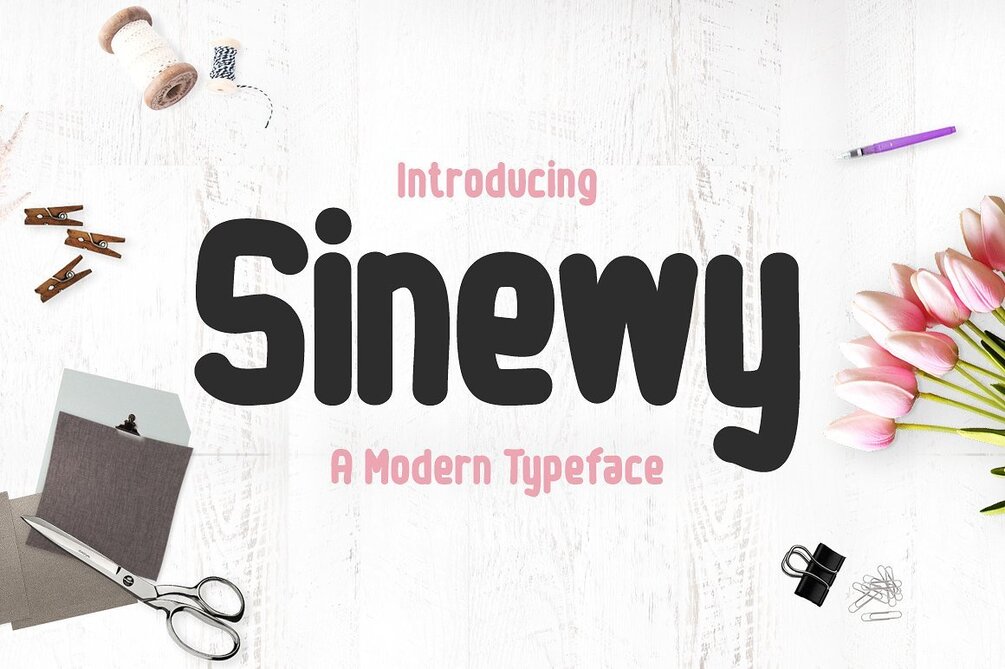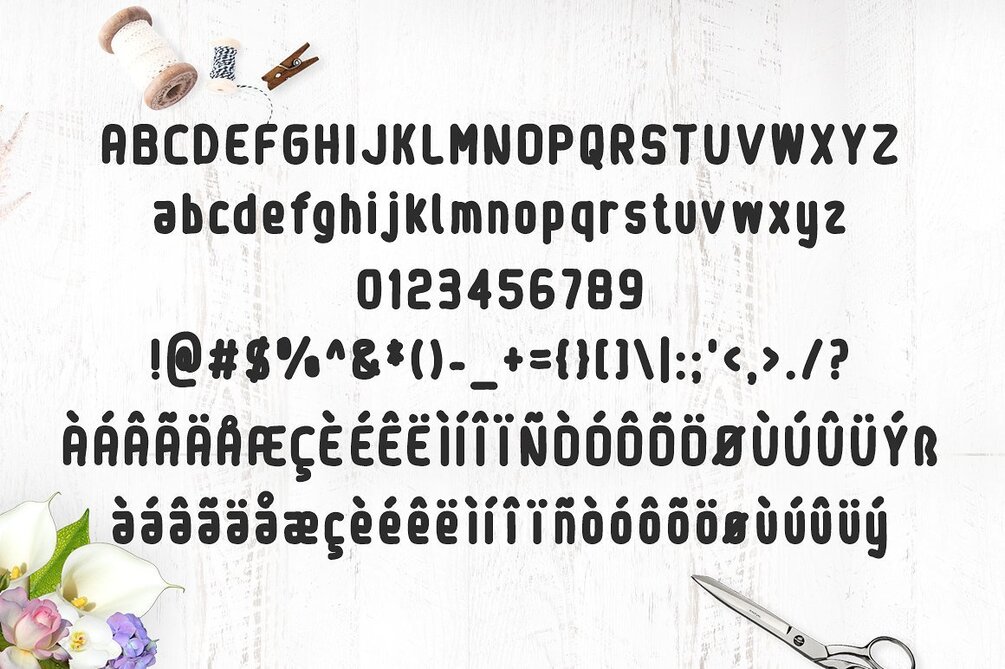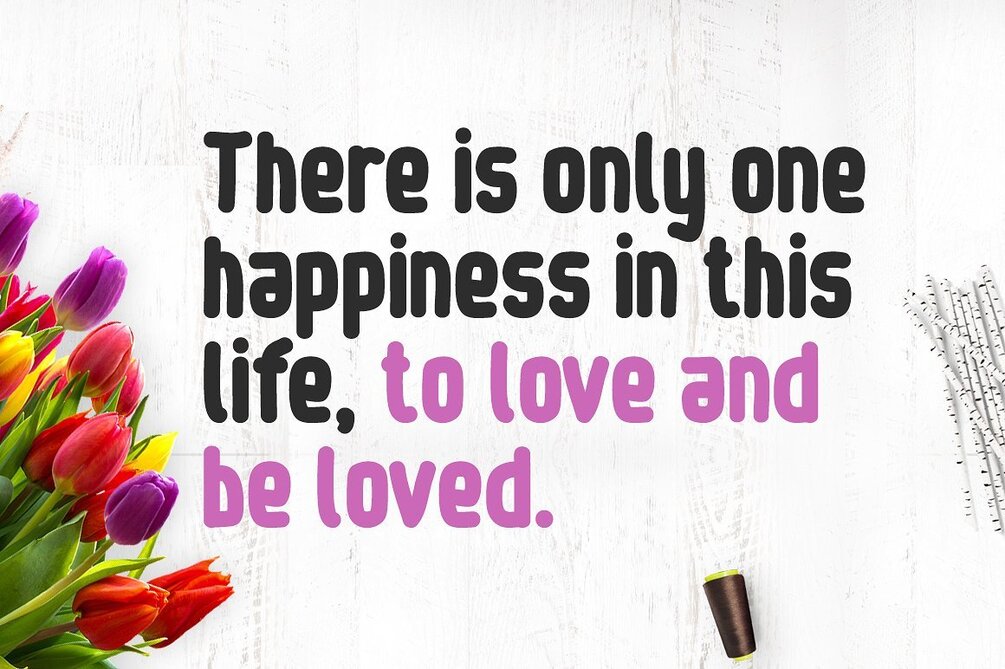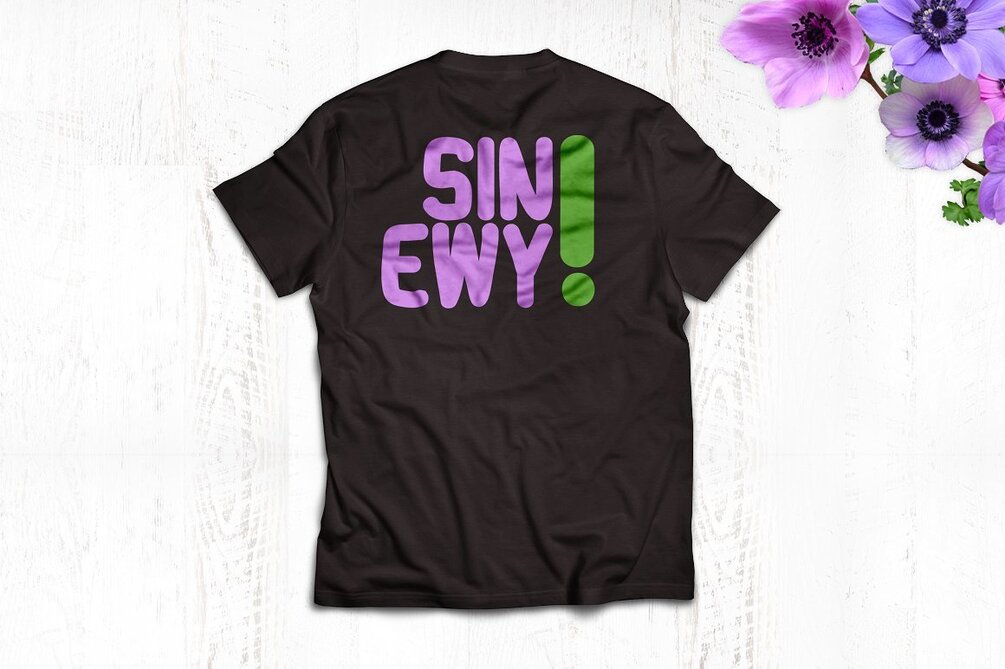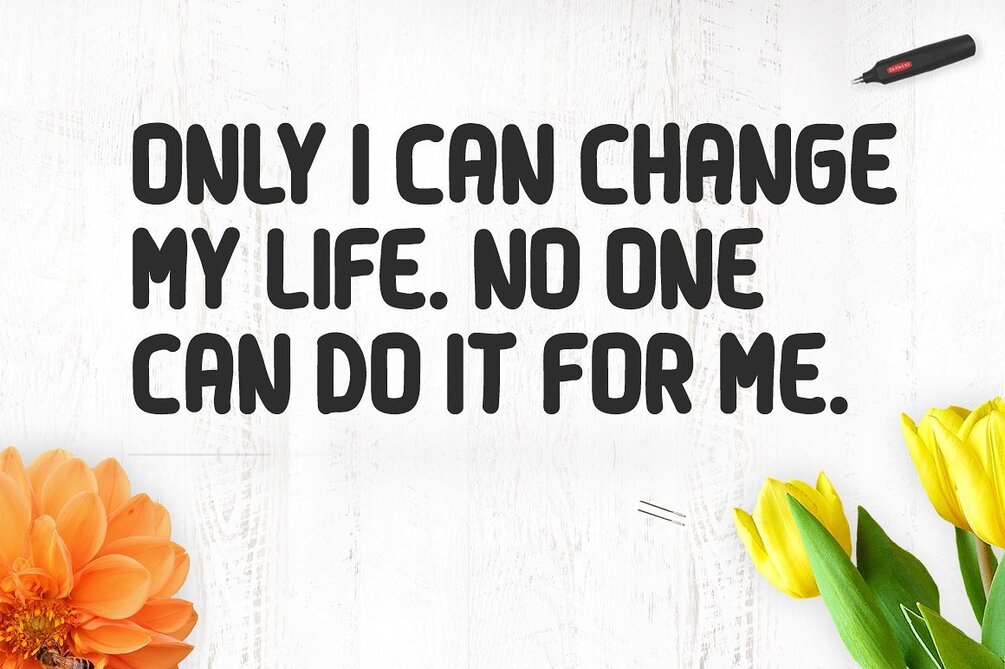
Sinewy
Sinewy is a brand new font. I hope you like it. Very suitable for logos, t-shirts, print design, website headers, photo frames, flyers, album covers, posters, image sliders and much more.
Features:
Uppercase
Lowercase
Numeral
Punctuation
Includes a range of multilingual support